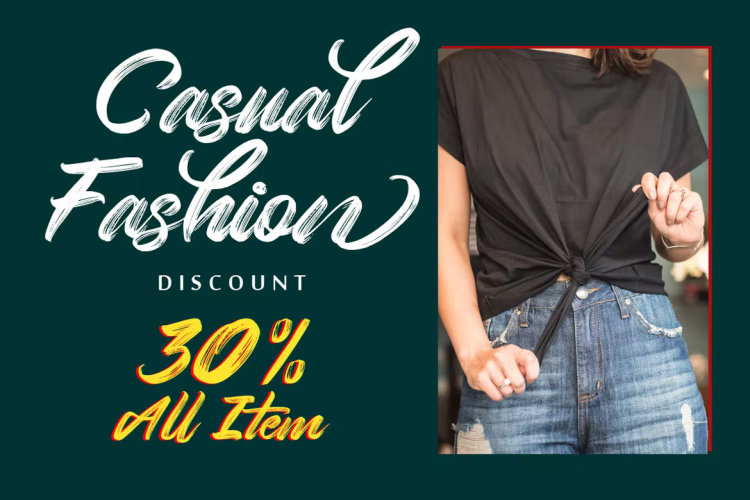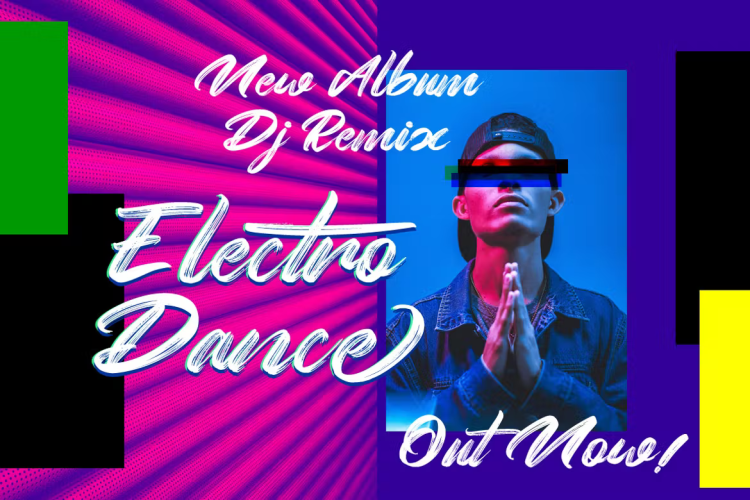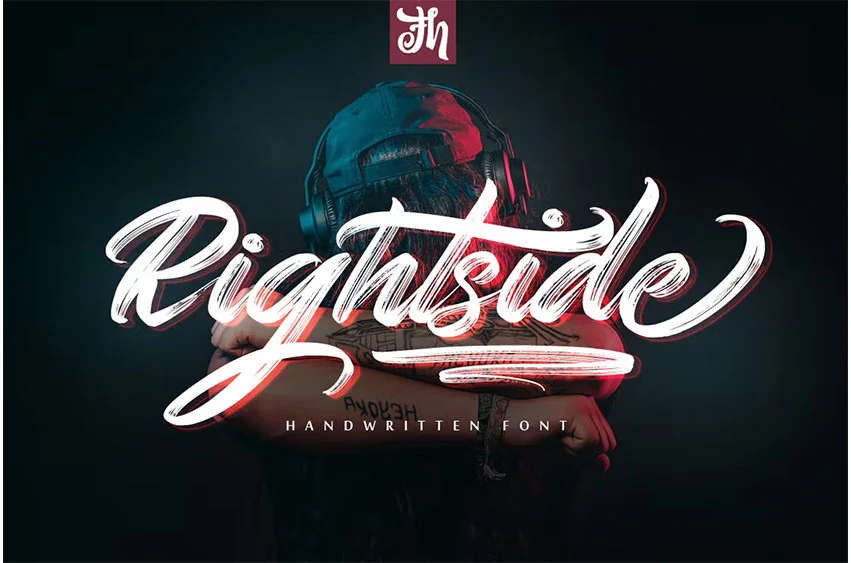
Rightside Font
Rightside Font is Script Font with Handlettering Dry Brush Style, with OpenType feature include of the font. Suitable for design, element design, wedding, event, t-shirt…
Rightside Font is Script Font with Handlettering Dry Brush Style, with OpenType feature include of the font. Suitable for design, element design, wedding, event, t-shirt, logo, badges, stickers, awesome work, etc…
Feature Of The Font:
Where Rightside Font works best
Rightside Font brings a personal, handwritten warmth to invitations, menus and place cards.
Craft brands — coffee, cosmetics, bakery — use scripts like Rightside Font for signature-style logos and labels.
Pair Rightside Font with a plain sans for quotes, stories and Pinterest pins that feel handmade.
What is Rightside Font good for?
Rightside Font is a Script And Handwritten typeface tagged Branding, Brush, Craft, Handwritten. It works well for headlines, logos, posters, social media graphics and branding projects that need a distinctive script and handwritten look.